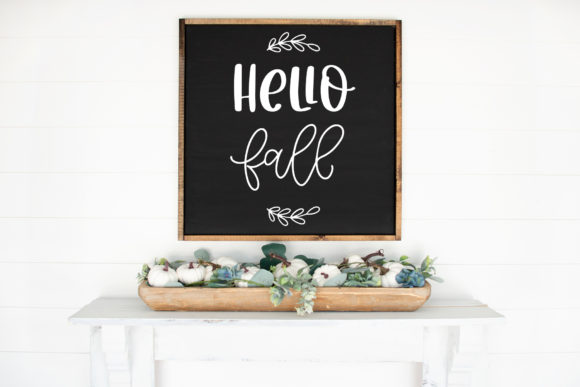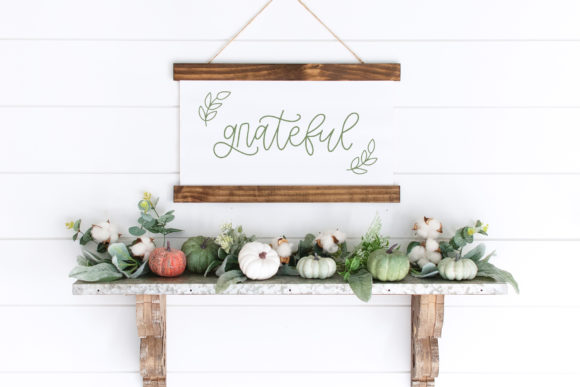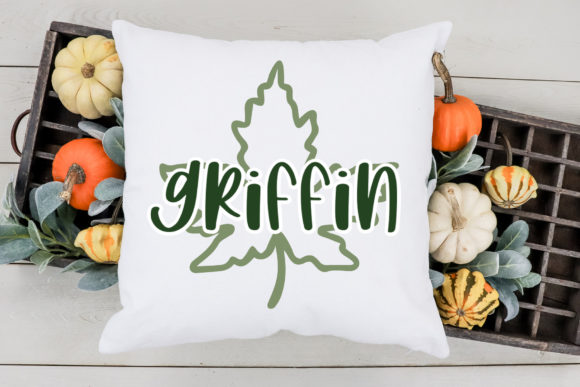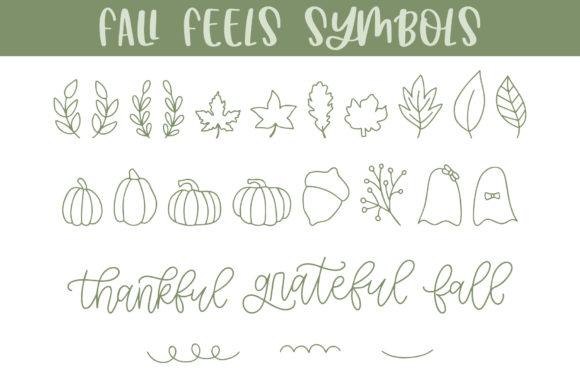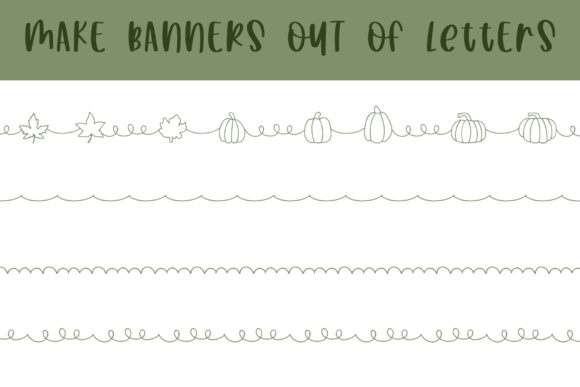
Introducing Fall Feels Font: The Perfect Addition to Your Crafting Projects
As the seasons change and fall approaches, designers and crafters are on the lookout for unique and festive elements to add to their projects. If you’re looking for a beautiful and versatile font to get you in the mood for fall, look no further than Fall Feels Font. This stunning dingbat font is perfect for adding a cute touch to your upcoming crafting projects, and we’re excited to dive into its features and benefits.
What is Fall Feels Font?
Fall Feels Font is a gorgeous dingbat font that’s specifically designed to capture the essence of the fall season. With its intricate and whimsical designs, this font is sure to add a touch of autumnal charm to any project. From invitations and greeting cards to scrapbooking and DIY crafts, Fall Feels Font is the perfect addition to your design toolkit.
Key Features of Fall Feels Font
- Unique Dingbat Designs: Fall Feels Font features a range of unique dingbat designs that are perfect for fall. From leaves and acorns to pumpkins and turkeys, this font has everything you need to create stunning fall-themed projects.
- Scalable: This font is fully scalable, which means you can use it for a wide range of projects, from small greeting cards to large-scale signage.
Ideas for Using Fall Feels Font
So, how can you use Fall Feels Font in your crafting projects? Here are a few ideas to get you started:
- Fall Invitations: Create beautiful fall-themed invitations for parties, gatherings, and special events.
- Scrapbooking: Add a touch of fall charm to your scrapbooking projects with Fall Feels Font.
- Greeting Cards: Create stunning fall-themed greeting cards for friends and family.
- DIY Crafts: Use Fall Feels Font to add a personal touch to your DIY crafts, such as pumpkin decorations, fall-themed signs, and more.
Fall Feels Font is a beautiful and versatile dingbat font that’s perfect for adding a cute touch to your upcoming crafting projects. With its unique designs, ease of use, and scalability, this font is sure to become a staple in your design toolkit. Whether you’re a designer, crafter, or DIY enthusiast, Fall Feels Font is a must-have for anyone looking to add a touch of fall charm to their projects.